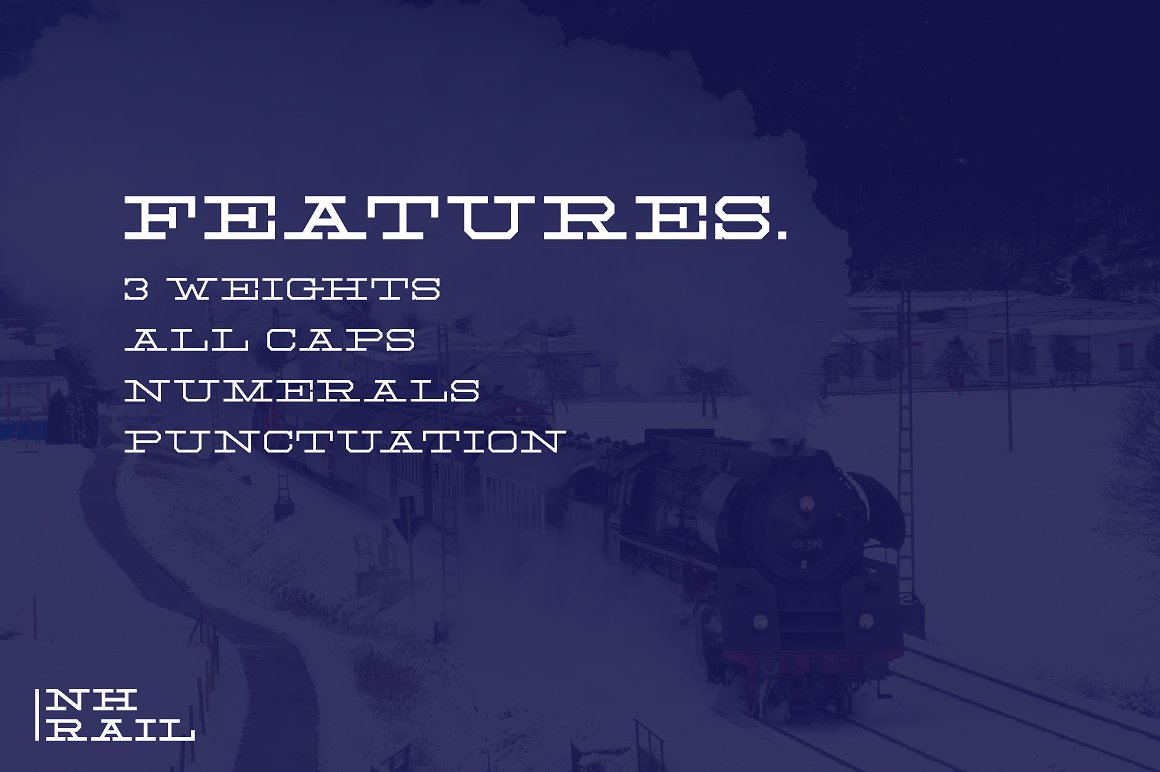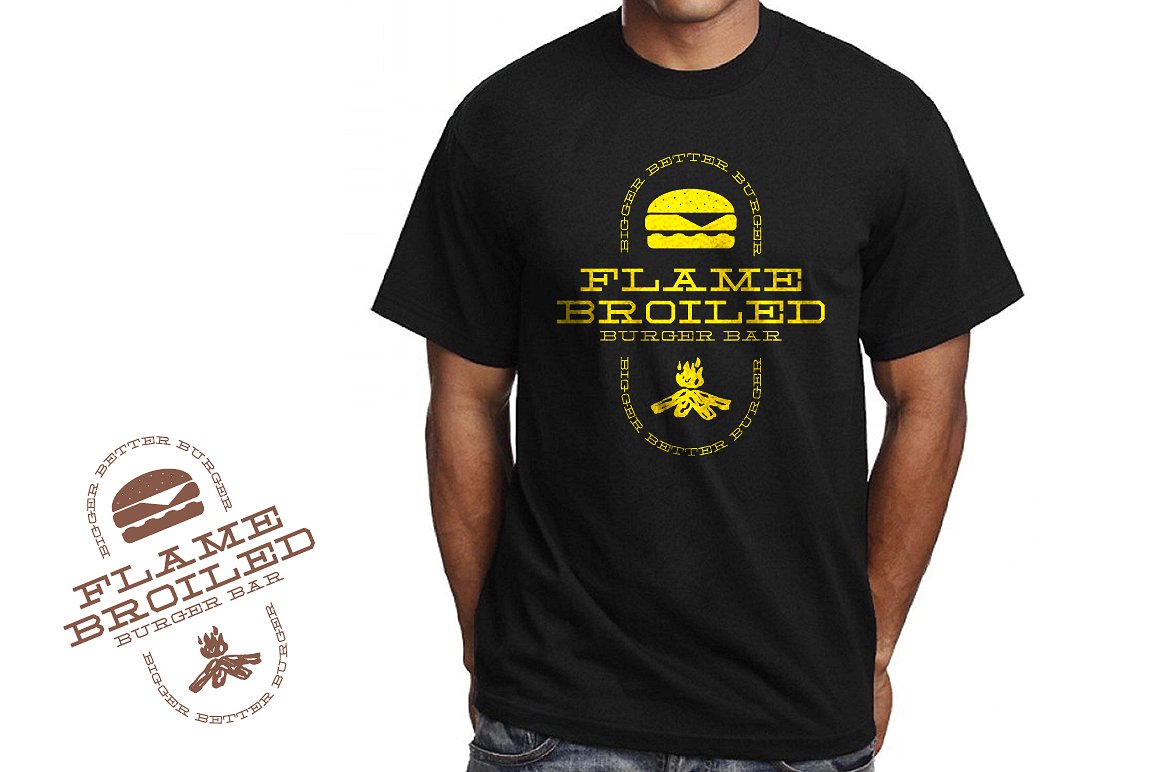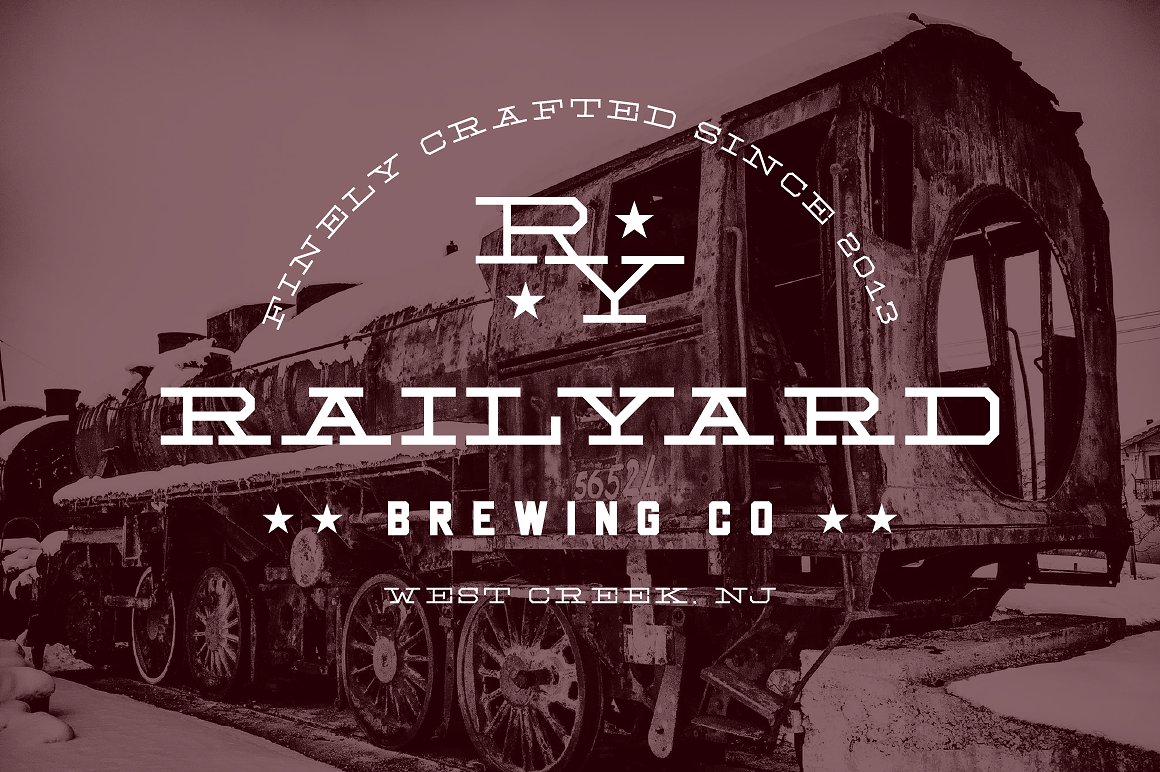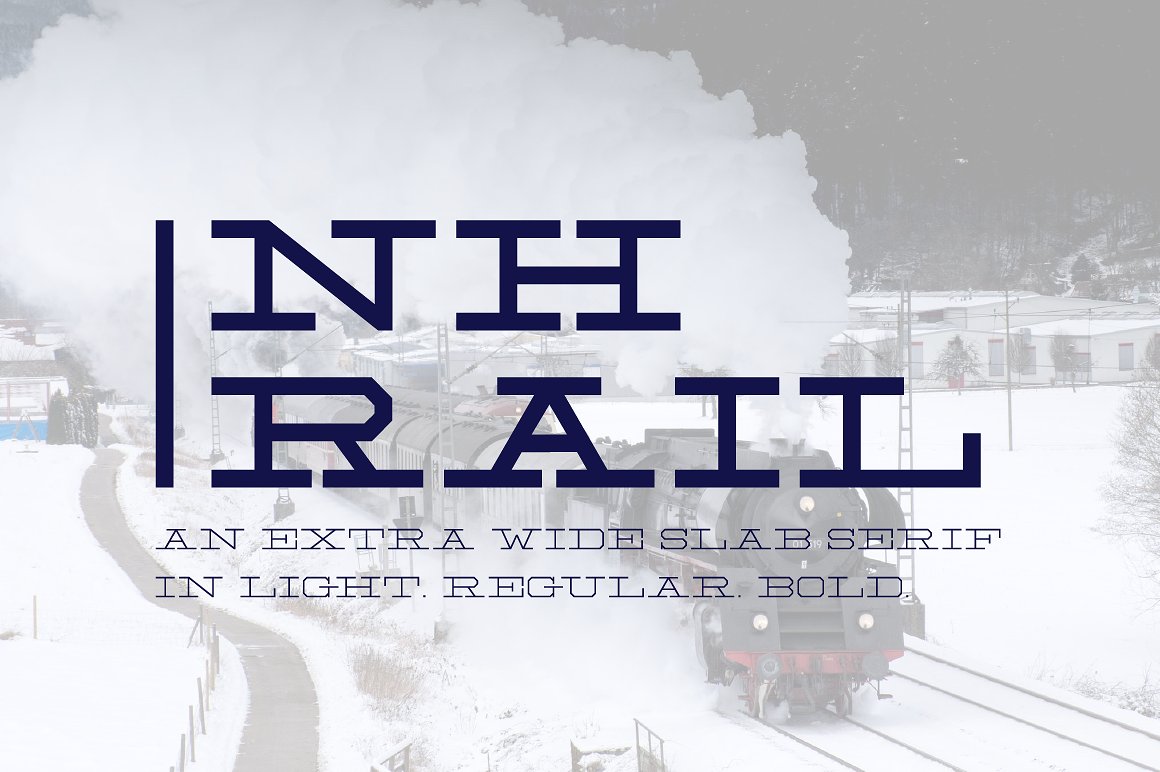
NH Rail Slab Typeface
Introducing NH Rail Font. It is designed by Von Type Co, this is a premium font, are sold on creativemarket, but it was great, it is free today for download. NH Rail Slab Typeface is an extra wide slab serif inspired by the old logo for the New Haven Railroad (1872-1968) created by Herbert Matter. It fuses long bold slab serifs with modern block styling to create an impactful timeless look that adds a punch to any design & logo.